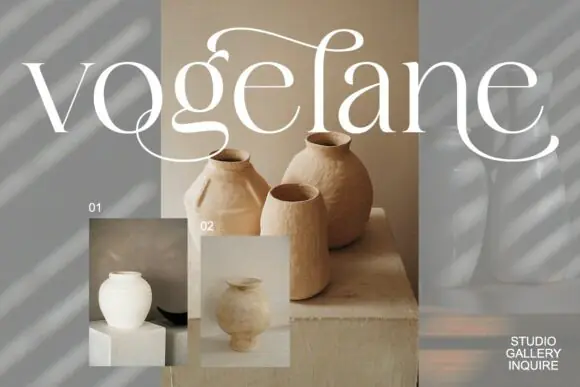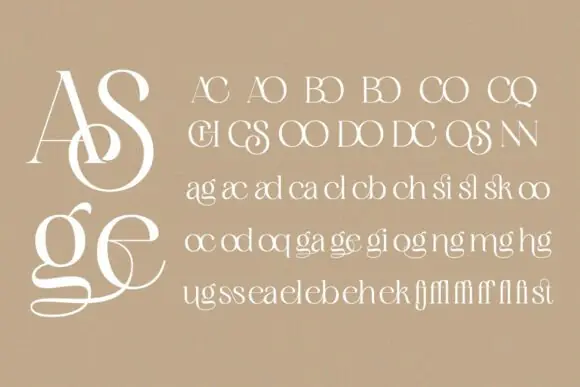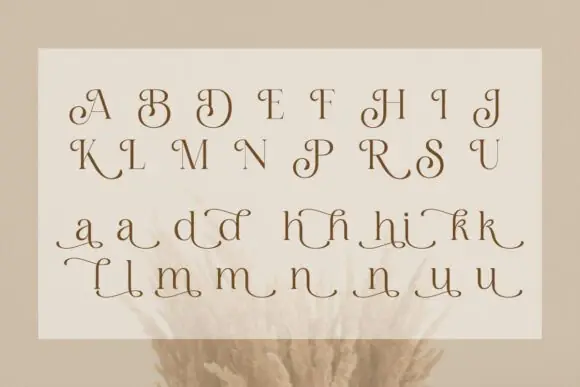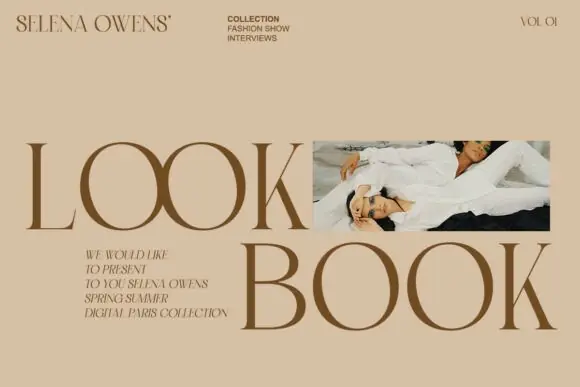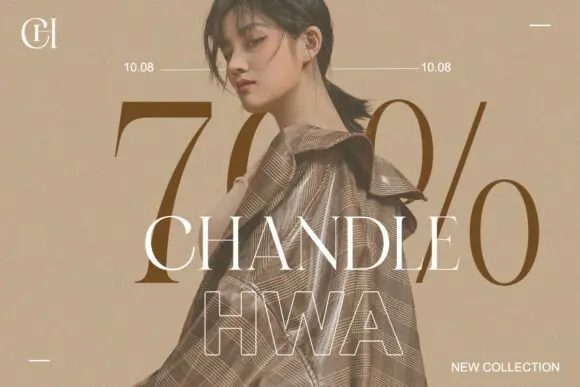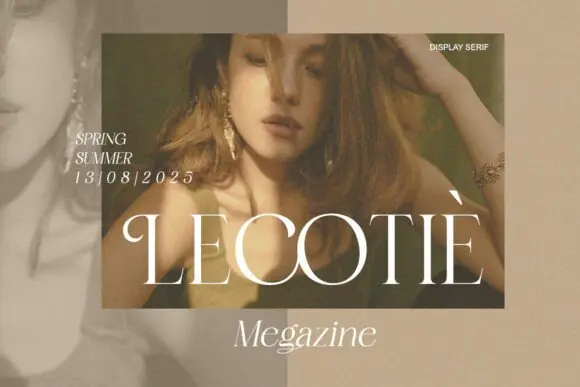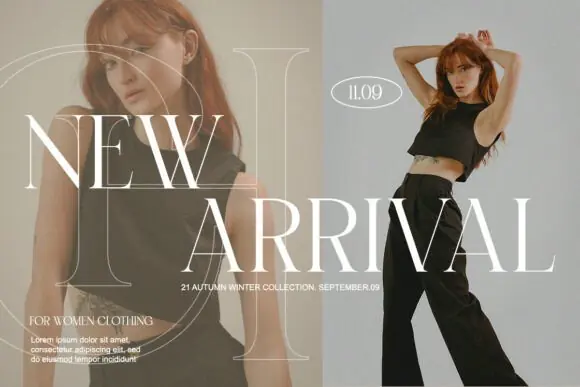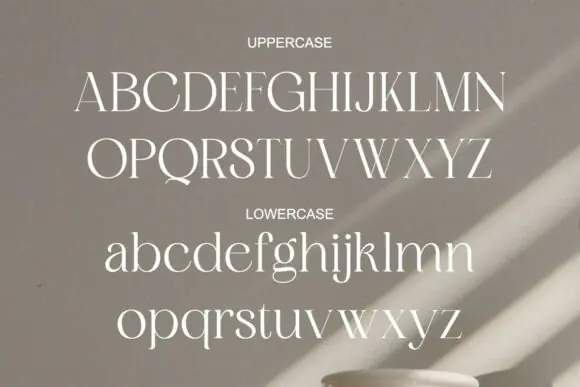
Silkydusk Luxury Minimal Serif Font – Modern Logo Typeface with Alternates, Ligatures & Multilingual Support for Branding, Fashion Magazines, Packaging, Wedding Invitations & High-End Designs
Create elegant, refined, and premium designs with Silkydusk Font, a luxury minimal modern serif typeface crafted for sophisticated branding and timeless visual identity projects. With smooth curves, graceful alternates, delicate ligatures, elegant strokes, and balanced proportions, this font brings a polished high-end look to every design.
Silkydusk Font is perfect for luxury logos, branding, fashion magazines, editorial layouts, product packaging, wedding invitations, bridal stationery, boutique labels, beauty branding, social media graphics, website headers, business cards, quote designs, and premium marketing materials. Its classy serif style works beautifully for both bold headlines and refined body text, making it versatile for professional digital and print projects.
This font includes alternate characters, ligatures, multilingual support, and professional file formats including OTF, TTF, and WOFF, giving designers flexibility for branding, print, and web-based creative work. Whether you are creating a high-end logo, elegant wedding suite, luxury packaging design, or fashion editorial layout, Silkydusk Font helps your typography feel prestigious, exclusive, and memorable.
Key Features
• Luxury minimal modern serif font style
• Smooth curves and elegant strokes
• Graceful alternates and delicate ligatures
• Balanced proportions for premium typography
• Great for bold headlines and refined body text
• Multilingual support included